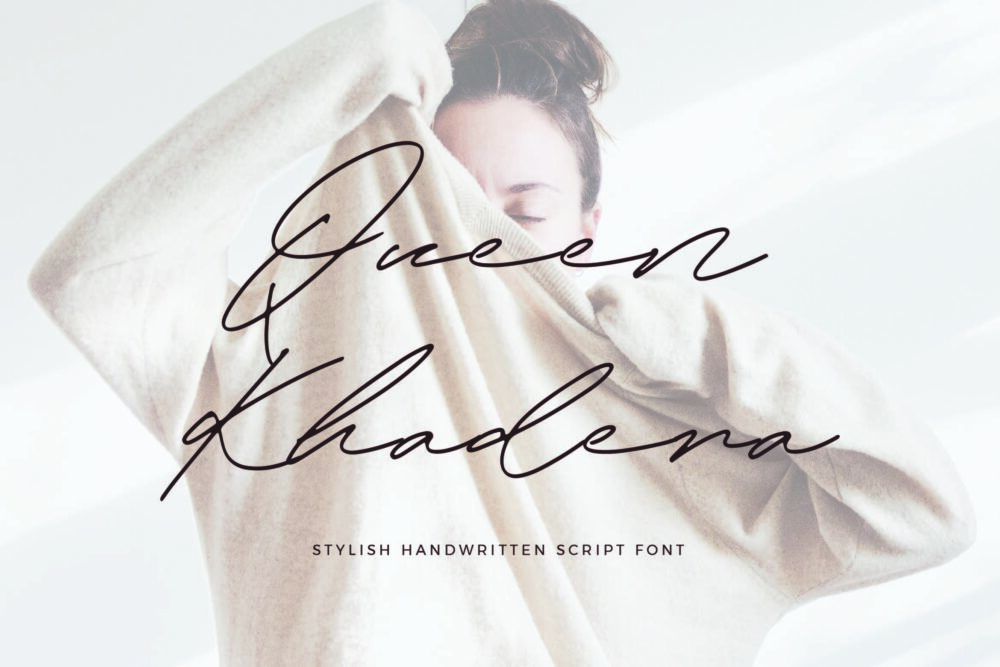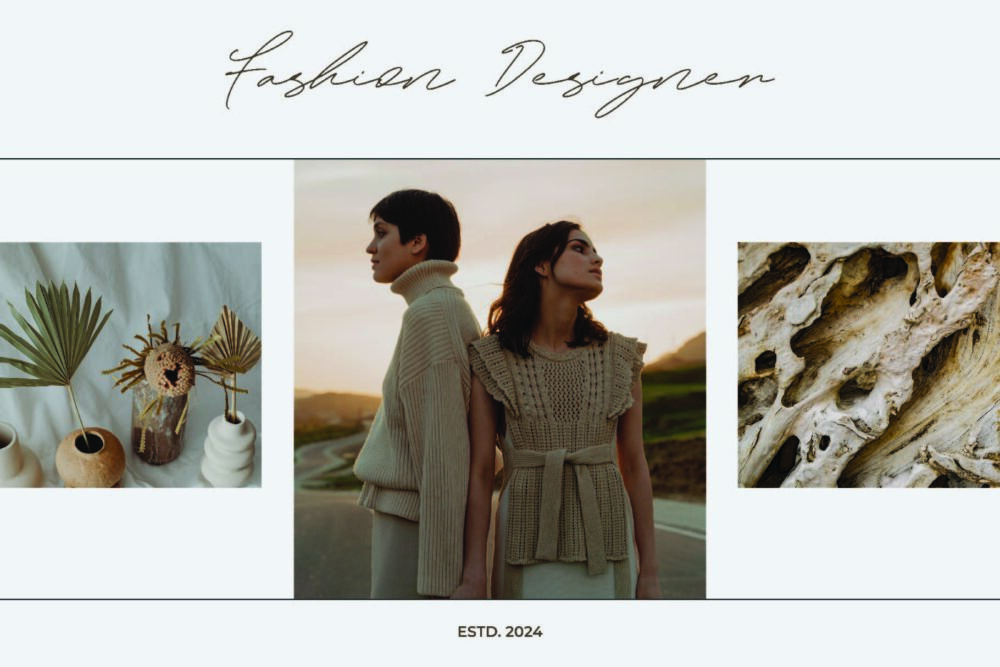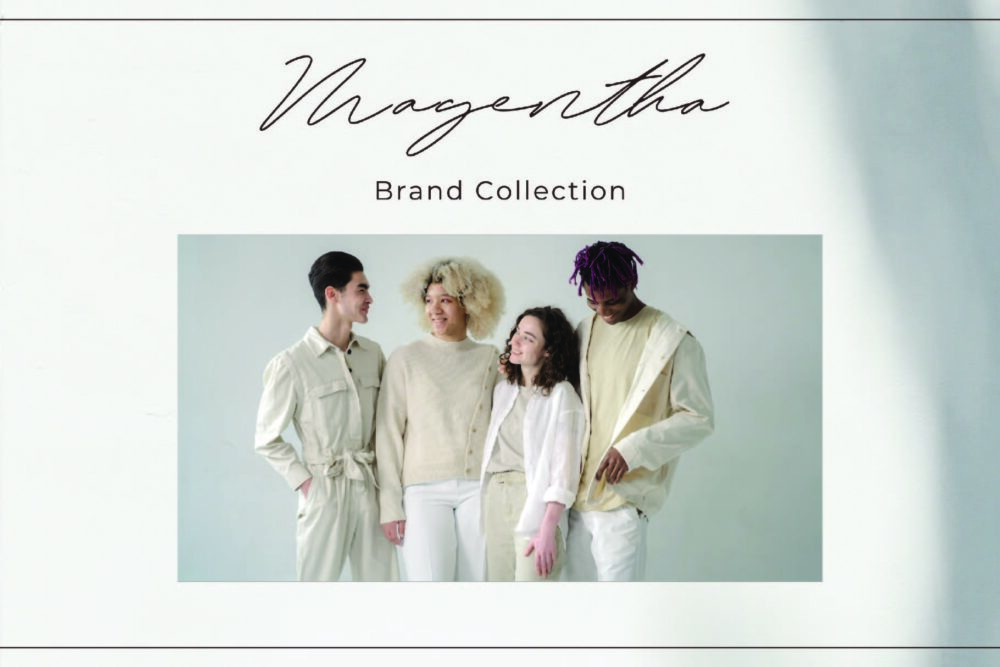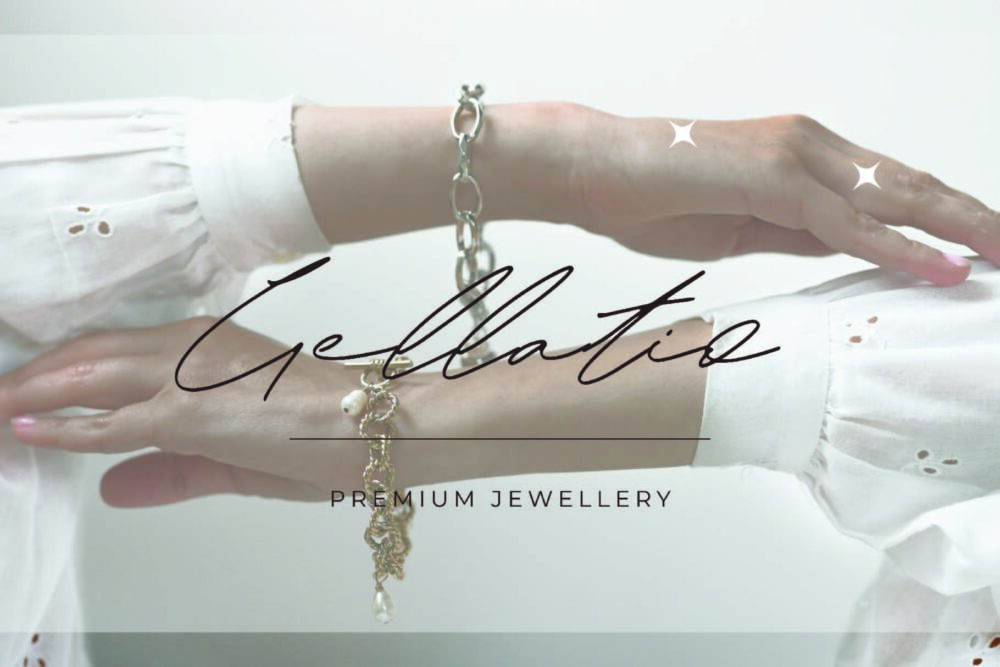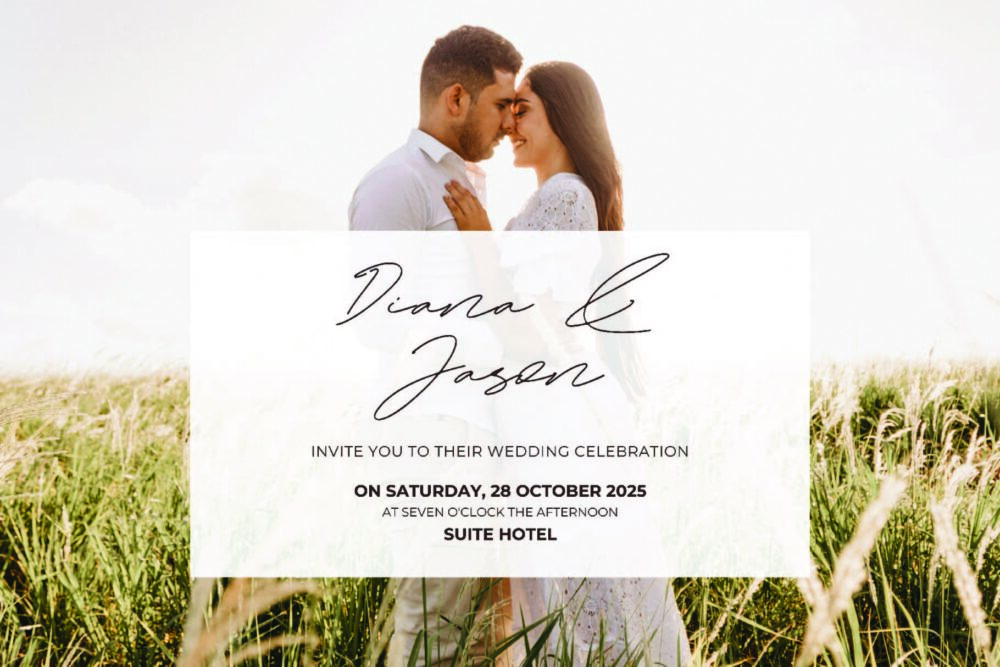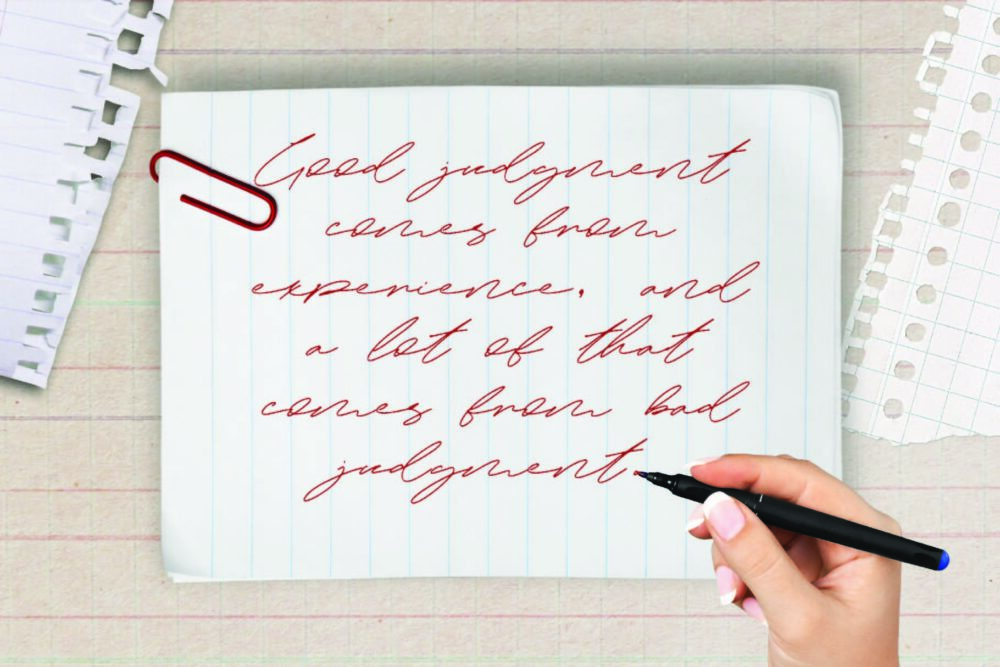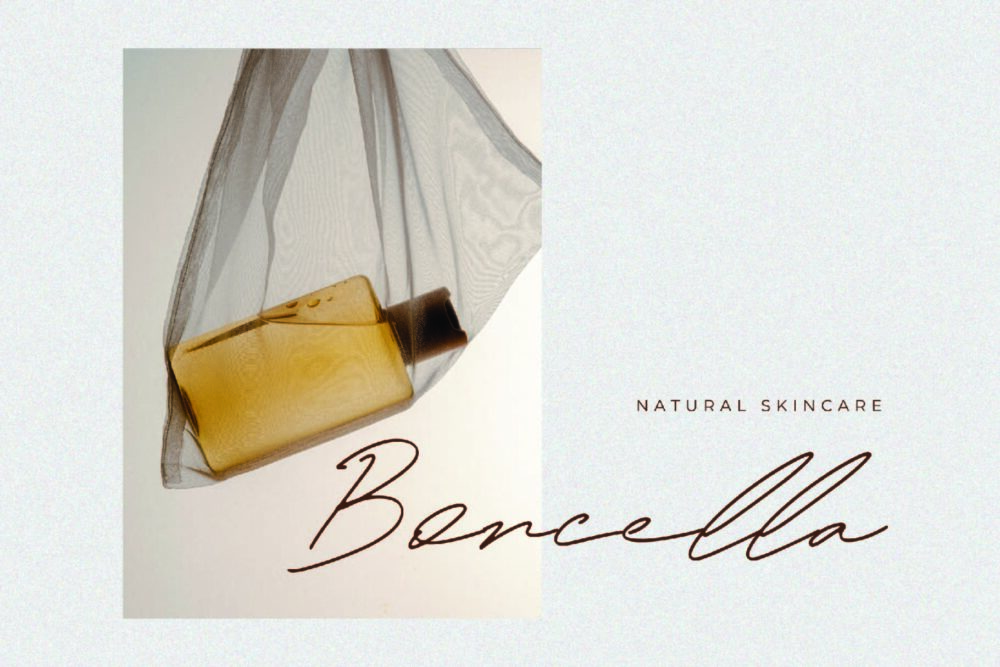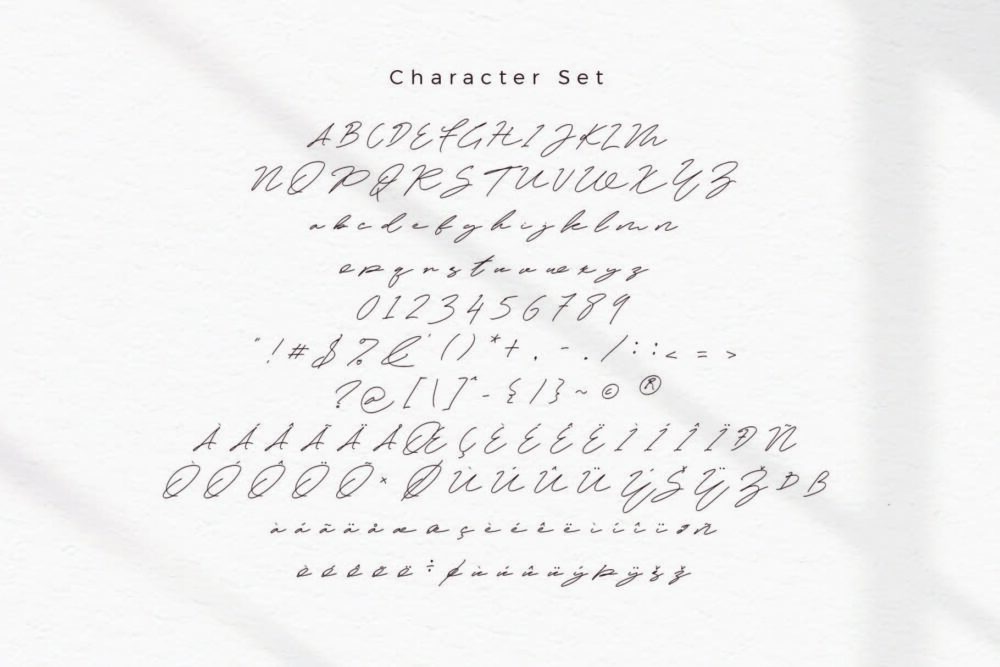
Queen Khadera
Queen Khadera is a beautiful signature font for a variety of designs. Queen Khadera can be used for products such as handcraft, product packaging, quotes, product design, craftsmen, lanels, photography, watermarks, logos & branding. Everything can be accessed using software that supports Opentype, such as Adobe Indesign, Adobe CS IIustrator, Adobe Photoshop CC, and Corel Draw.
Queen Khadera – Stylish Handwritten Font